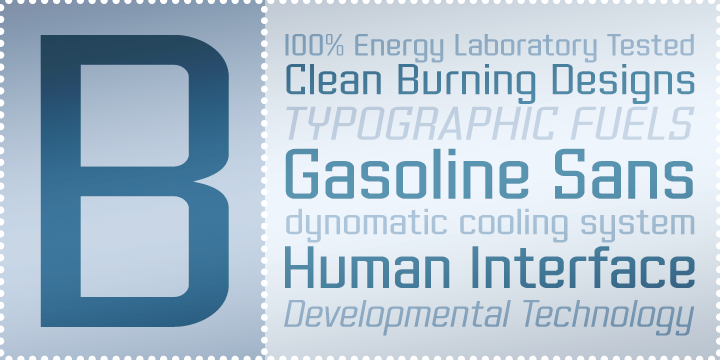
Gasoline Sans BTN
Designed by: Stuart Sandler
Designed when: 2003
Gasoline Sans is a geometric, sans serif font family that takes a clean, simple, straightforward approach to legibility.
Inspired by pure geometric letterforms, the Gasoline family creates its own honesty with a hint of personality.